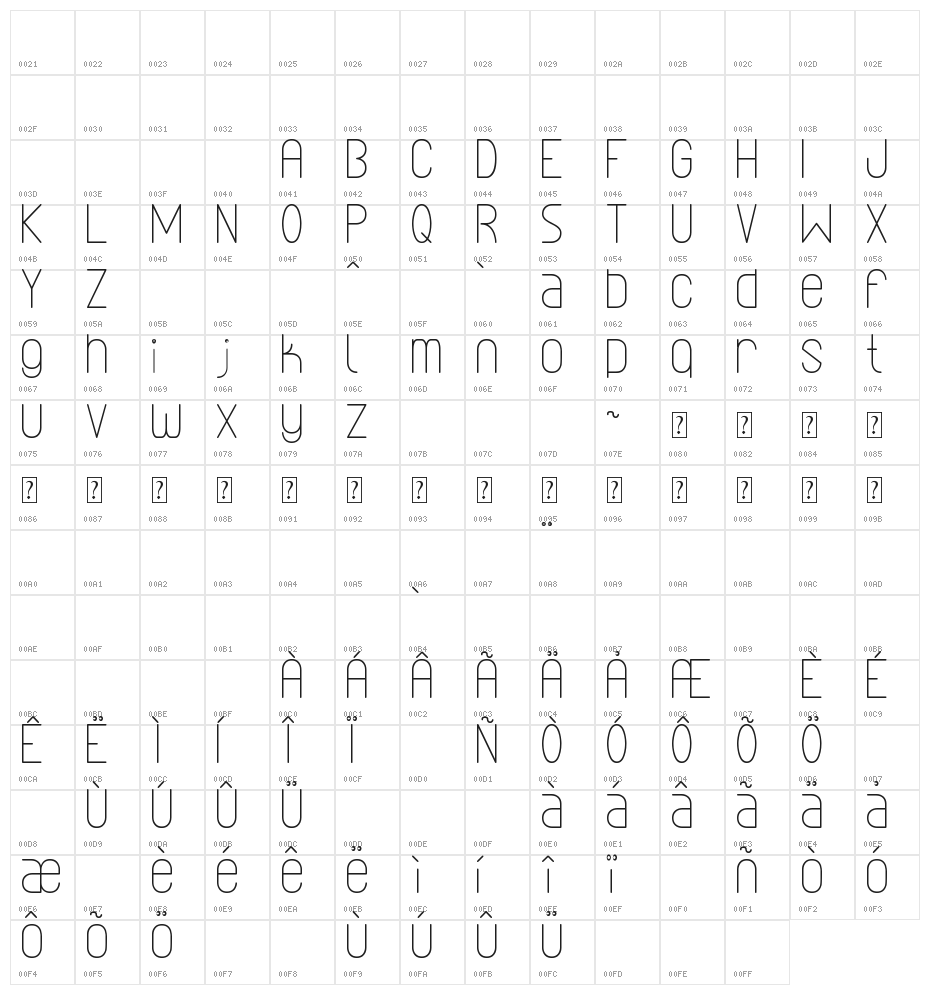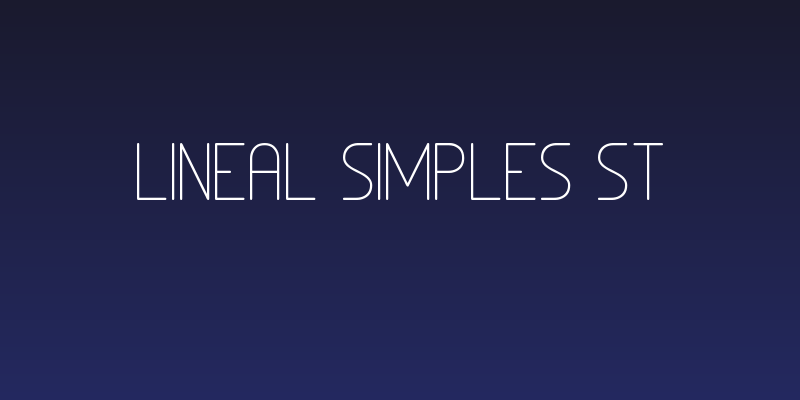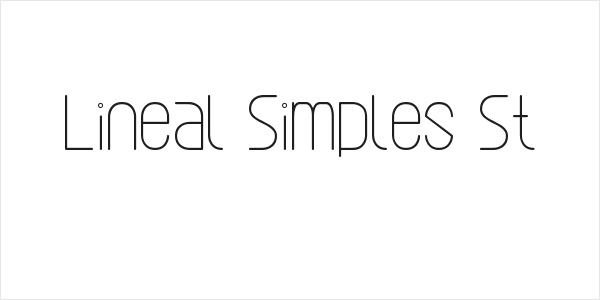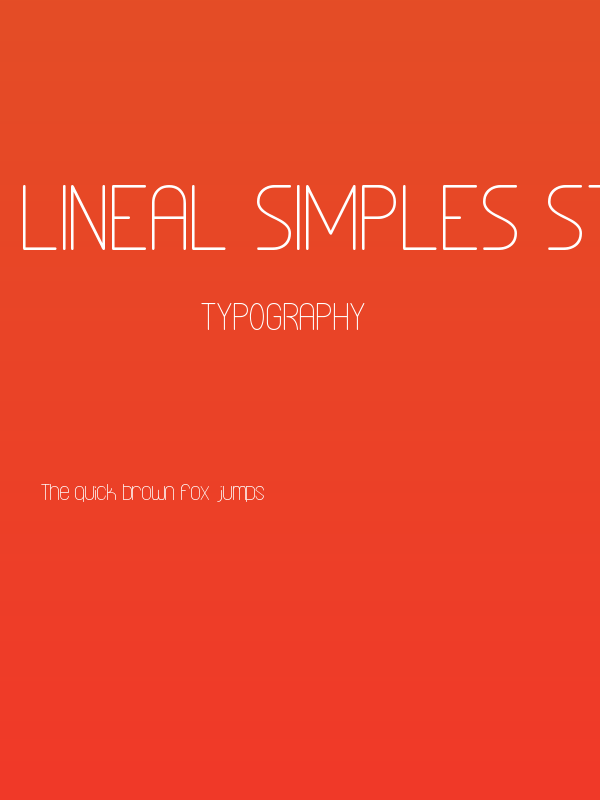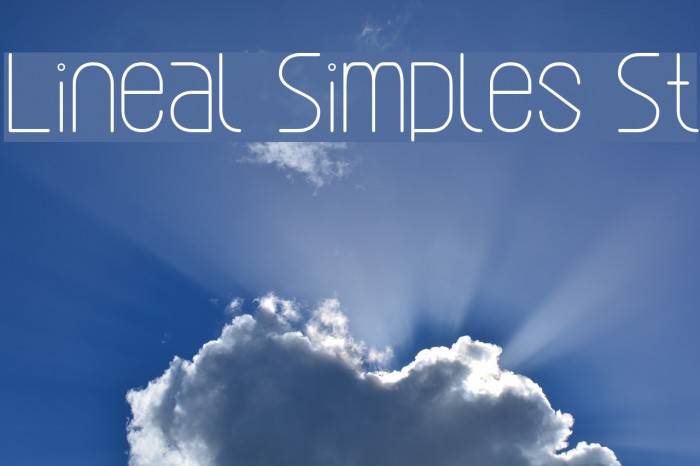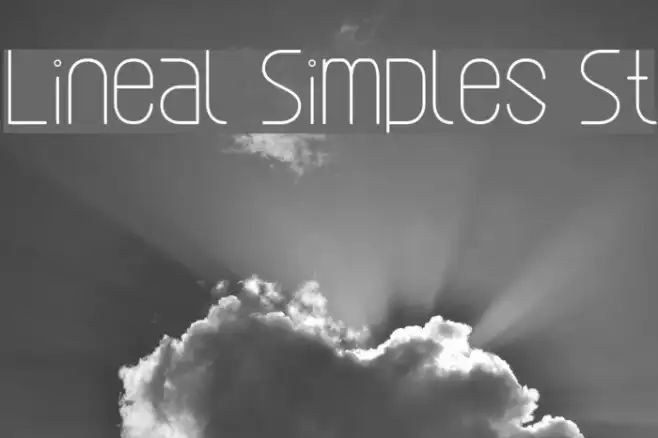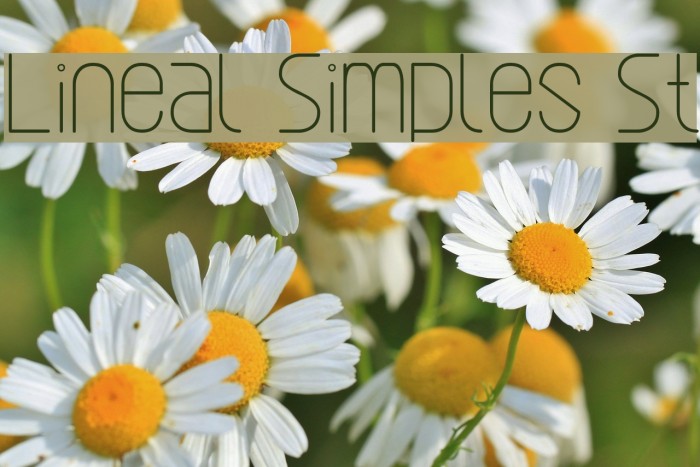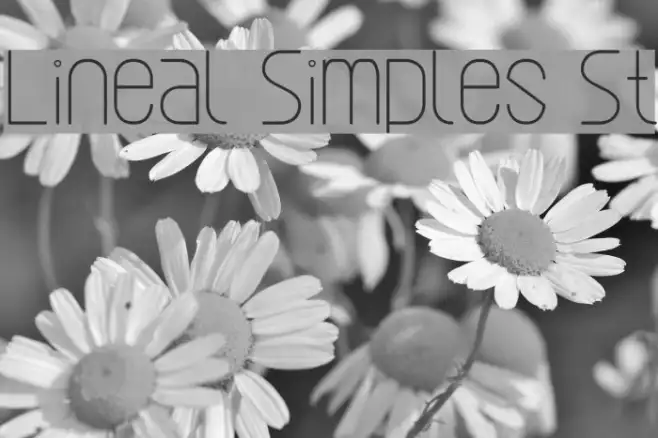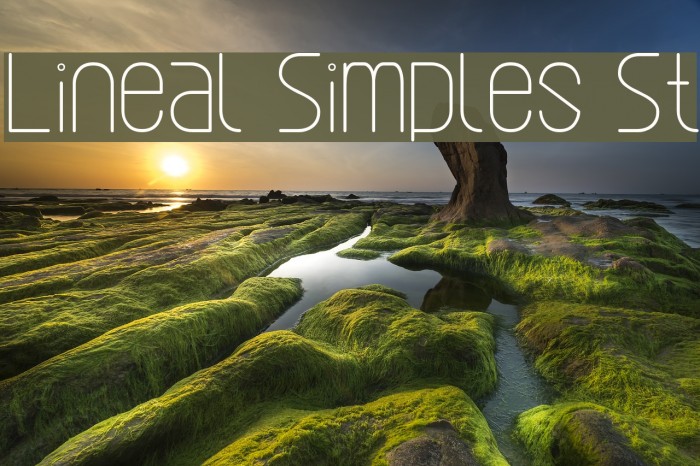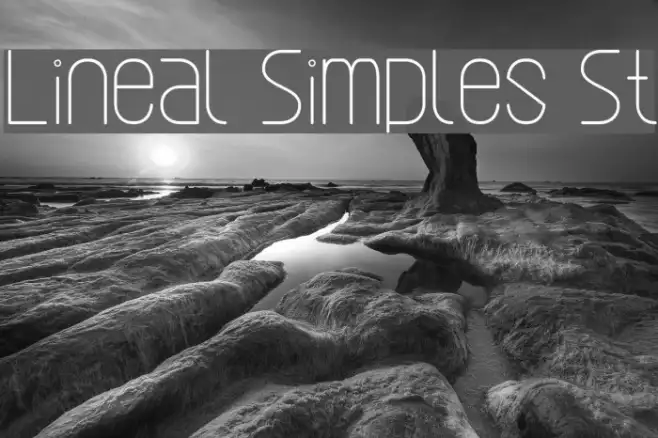
Lineal Simples St Font
Lineal Simples St Description
This font features a clean and modern design with a geometric structure. The characters are composed of thin, uniform lines that give it a sleek and minimalist appearance. The uppercase and lowercase letters maintain a consistent height and width, contributing to a harmonious and balanced look. The font's simplicity is enhanced by its monolinear strokes, which create a sense of elegance and sophistication. The rounded edges of the characters add a touch of softness, making it approachable and versatile. Its legibility is high, even at smaller sizes, making it suitable for a variety of applications. The font's overall aesthetic is contemporary, making it ideal for modern design projects.
| Use Case | Headlines, Body text, Logos |
| Proposed Projects | Ideal for branding, editorial design, web design, and advertising materials where a modern and clean aesthetic is desired. |